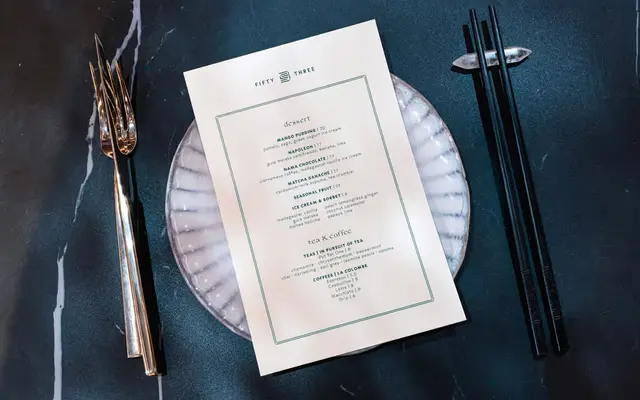
A humanist sans-serif in six weights with calligraphic character, offering alternate glyphs for R, Z, a, g, v and w to vary typographic expression.
Drawing on calligraphic traditions within the humanist sans-serif genre, Yport delivers twelve styles across six weights from Light to Black, each with a matching italic. A set of alternate glyphs for key characters including R, Z, a and g gives designers room to shift register within a single family. Language support covers Basic Latin, Latin-1 Supplement and Latin Extended-A, spanning dozens of European languages from Catalan to Turkish.
Explicitly described as a humanist sans-serif, combining calligraphic influence with warmth and a unique spirit. The letterforms feature calligraphic expression and alternate glyphs that reflect humanist drawing traditions.